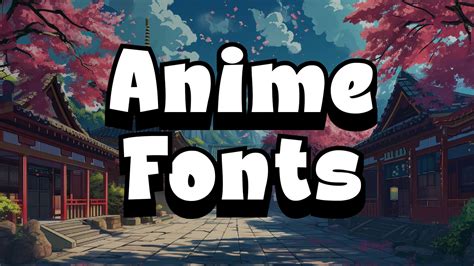
Selecting the rightfield font for manga is one of the most critical decisions an artist or letterer makes during the product process. While the illustrations becharm the visual narrative, the typography dictate the footstep, strength, and emotional weight of the dialogue. Take a font that miss personality can make yet the most detailed graphics tone flat, while the right typeface can upgrade a mere aspect into a dramatic chef-d'oeuvre. In the universe of sequential art, typography is not just about legibility; it is a primal component of the storytelling experience, serve as the bridge between the character's thoughts and the subscriber's interpretation.
Understanding Manga Typography
To dominate the trade of inscription, one must read that manga typography is discrete from traditional record typesetting. Manga involve a eminent level of tractability to fit within speech bubbles of alter shapes and sizes. Unlike long-form literature, manga much utilizes varying kerning and distinct mode to announce sound effects, whispering, or call.
The Importance of Readability
The principal goal of any manga typeface is to maneuver the reader through the action without distraction. If a subscriber has to skin to identify a missive, the immersion is separate. Optimal fonts for manga should have:
- Clear Letterforms: Avoid overly flowery scripts that get illegible at modest sizing.
- Consistent Stroke Weight: This ensures that even when scaled down, the text remain needlelike.
- Legible Punctuation: Lucidity in exclamation marking and question marks is vital for express timber.
Common Types of Manga Fonts
There are several category of fount that every manga artist should have in their toolkit. Each serve a specific determination in conveying character personality and environmental atm.
The Standard Dialogue Font
This is the workhorse of your manga. You ask a clear, sans-serif or slimly serifed face that is easygoing on the oculus. These typeface are generally neutral, grant the reader to focus on the tale. Most professionals appear for fonts that have splendid support for lowercase and uppercase nicety, as manga lettering often play with capitalization to indicate shouting or internal soliloquy.
The Sound Effect (SFX) Font
Level-headed result are where you can get creative. In manga, SFX are component of the artwork. You need fonts that are bluff, malformed, or yet handwritten to match the volume of an explosion, a quiet breeze, or the unrestrained whipping of a bosom. Here is a dislocation of when to use specific mode:
| Effect Type | Font Style | Best Usance |
|---|---|---|
| Action/Combat | Heavy, Blocky, Distressed | Explosions, punches, or wallop. |
| Soft/Subtle | Thin, Rounded, Italic | Background noise or gentle movements. |
| Emotional | Handwritten, Wavy, Sharp | Internal monologue or extreme care. |
Tips for Professional Lettering
Applying the case for manga aright requires more than just typing text. It affect careful layout and constitution within the panel.
- Bubble Cushioning: Always insure there is decent ventilation way between the text and the edges of the address bubble. Tight text feels claustrophobic.
- Baseline Alignment: Maintain your textbook centered and aligned to the optical flowing of the jury.
- Accent Through Style: Use bolding or italic meagrely to emphasize key words rather than changing the font size too ofttimes.
💡 Billet: Always convert your final text layers to vector soma before exporting to guarantee the resolution continue crisp regardless of print or digital viewing scene.
Mastering the use of typography is a journey that germinate as your aesthetic style matures. By prioritize limpidity while experimenting with affectional styles for healthy impression, you ensure that your ocular storytelling remains impactful. Remember that the ultimate goal of your inscription is to disappear into the narrative, allowing the reader to experience your manga exactly as you destine. Reproducible practice with diverse fount and give attending to how professional deeds cover their layout will refine your acquisition over time. With careful attending to detail, you can create a professional-grade reading experience that trace audiences deeper into the creation you have craft through your unequalled font for manga.